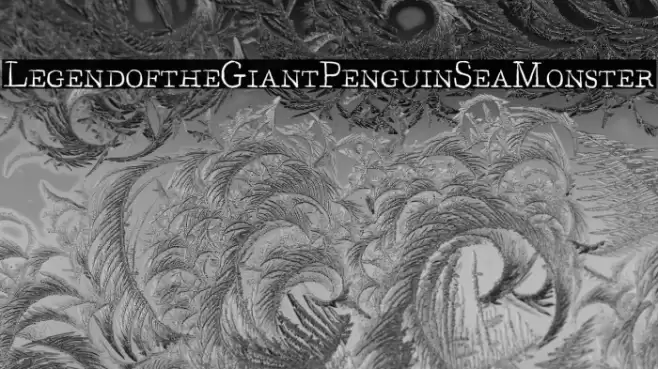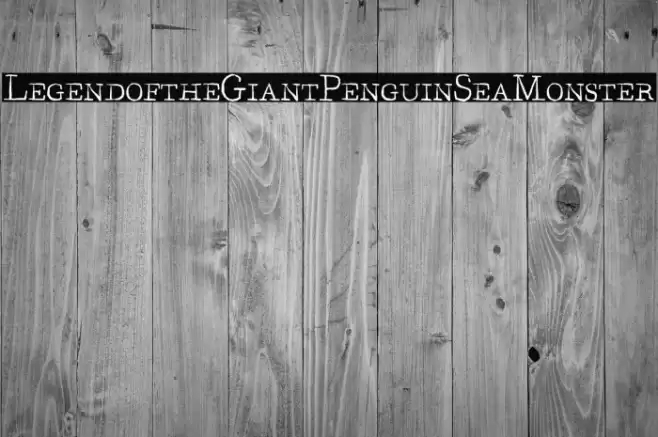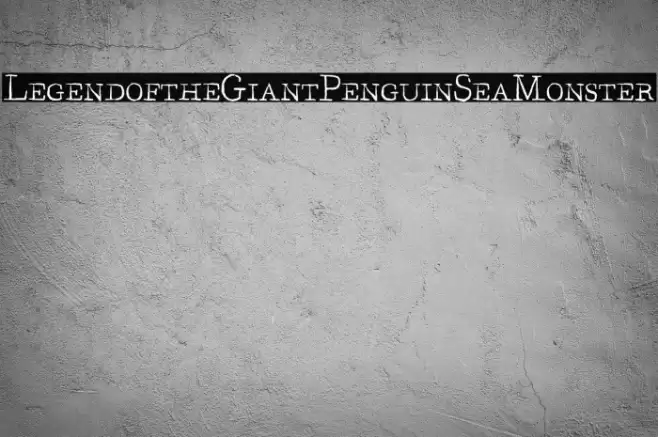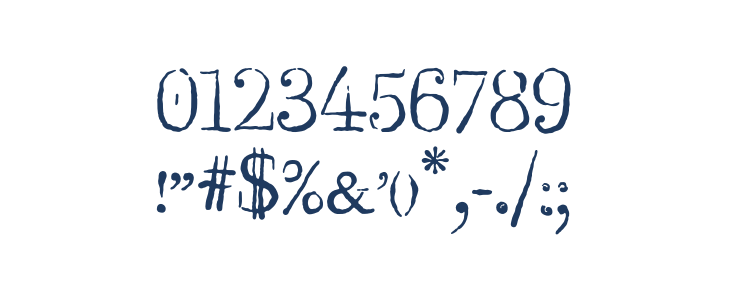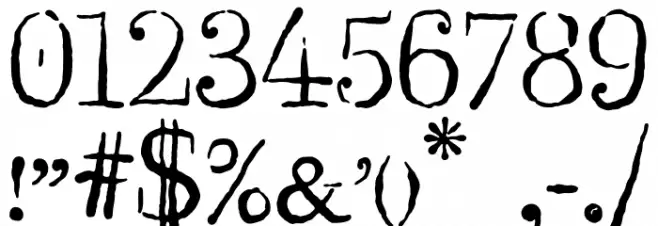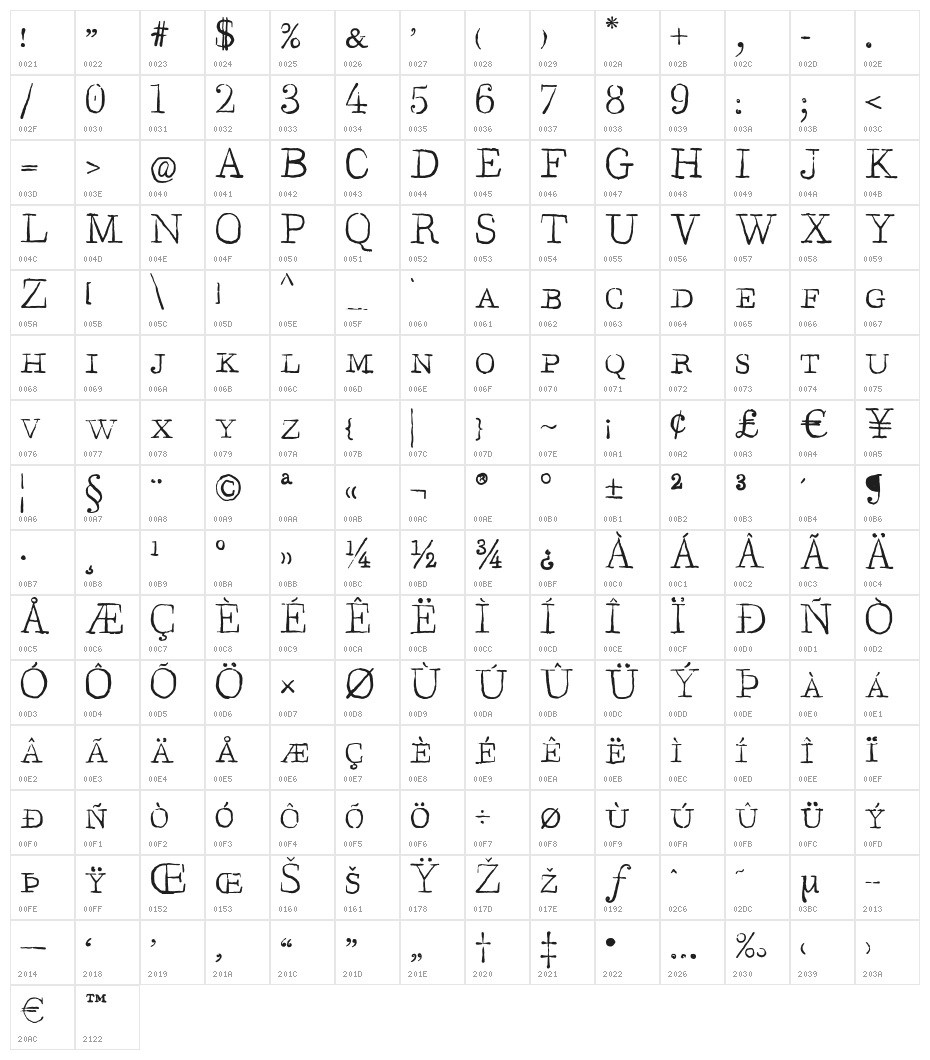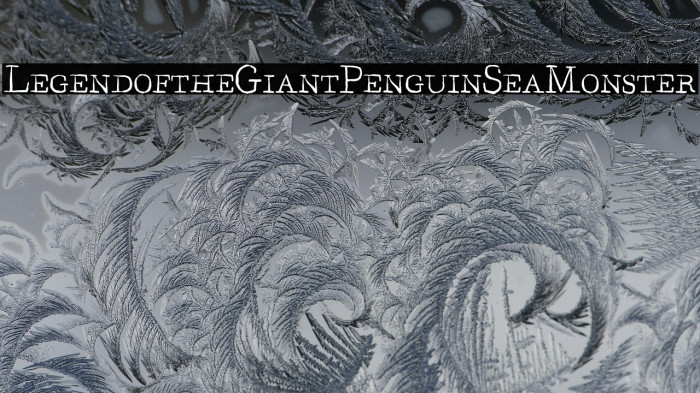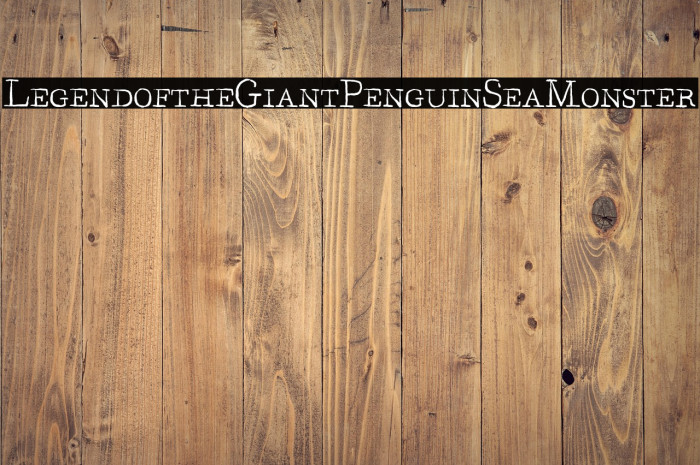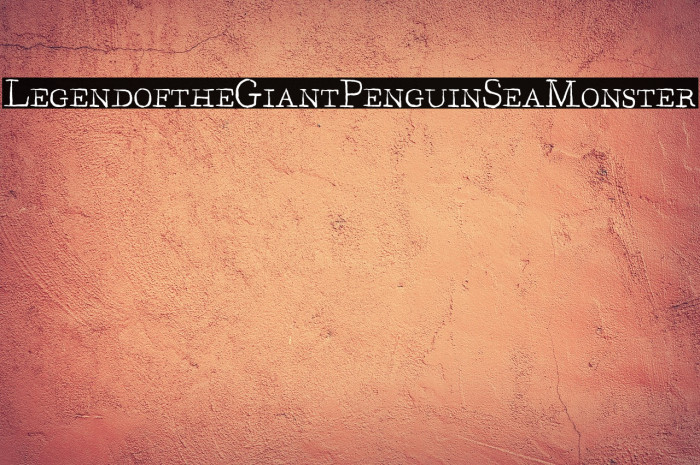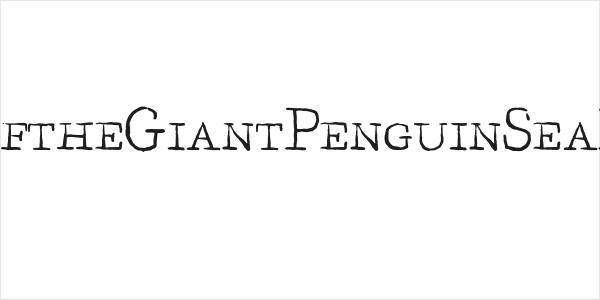
LegendoftheGiantPenguinSeaMonster Font
LegendoftheGiantPenguinSeaMonster Description
This font features a distinctive, hand-drawn style with a vintage feel. The uppercase and lowercase letters exhibit a slightly irregular, organic appearance, reminiscent of old typewriter or letterpress prints. The characters have a rough texture, adding to the rustic charm. The numerals are bold and maintain the same textured quality, ensuring consistency across the font. Special characters, including punctuation and symbols, are crafted with the same attention to detail, making this font versatile for various design needs. Its unique style is perfect for projects that require a touch of nostalgia or a handcrafted aesthetic.
A vintage, hand-drawn font with a textured, rustic appearance from Regular fonts.
- Proposed Projects: Ideal for vintage-themed posters, handcrafted product packaging, book covers, and artistic branding.
- Overall Style: Vintage
- Use Case: Logos, Headlines, Artistic projects